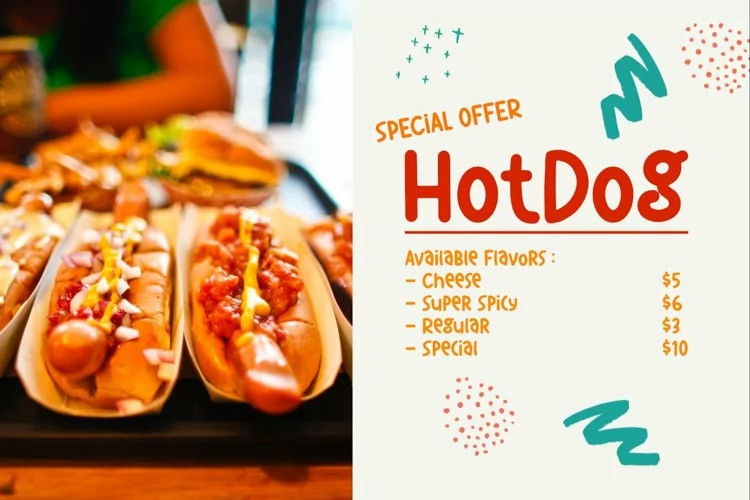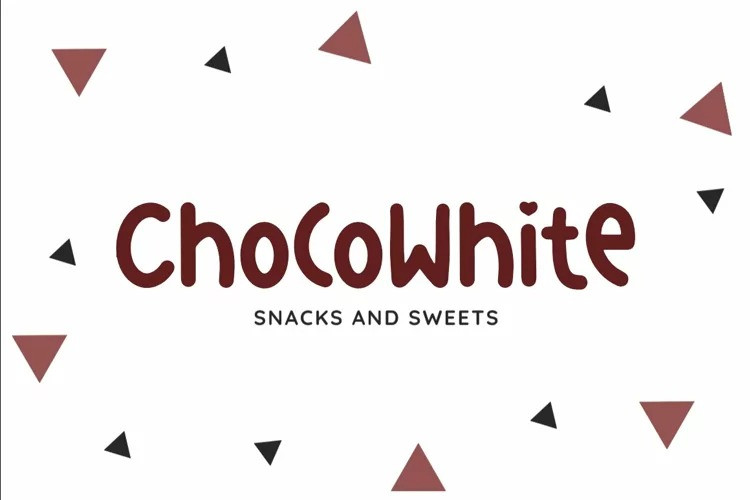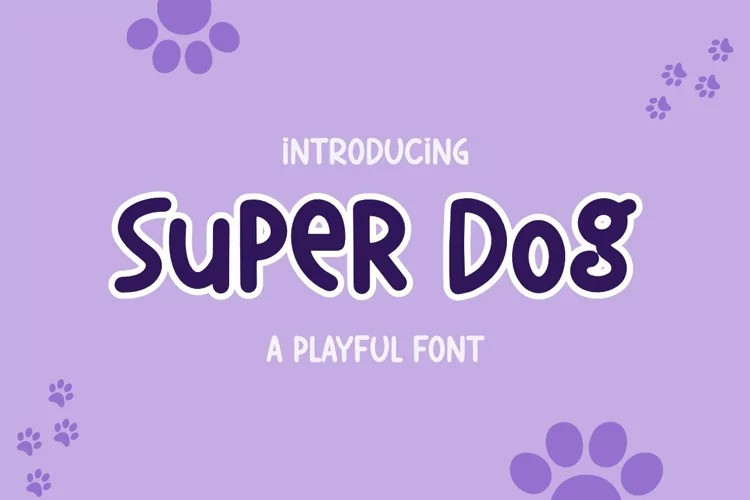
Super Dog Font
Super Dog Display Font is a playful display font. This font is made with a very fun theme. This font is suitable for food products, logotypes, movie titles, book covers, children’s t-shirts, and much more.